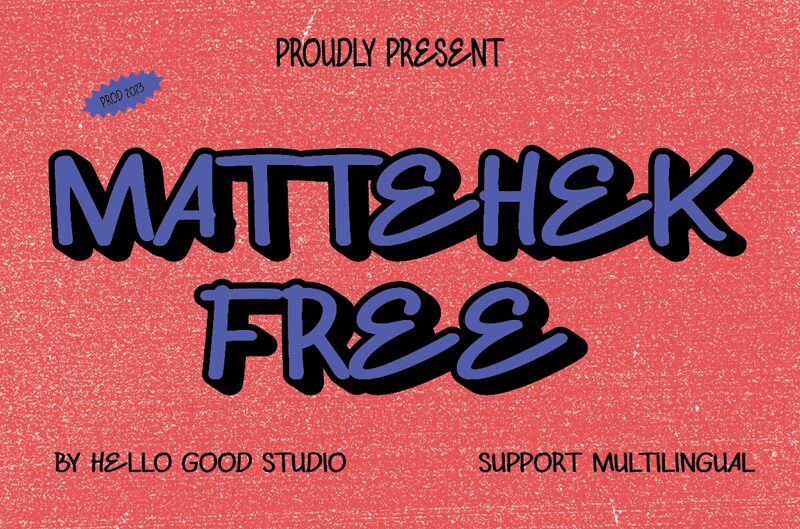
MATTEHEK FREE
Mattehek font is a handwriting-style free font with a light and friendly personality designed by Studio Hello Good. Mattehek brings stylish letters, cleanliness, and some expressive elements to your projects thanks to its unique natural handwriting style. It features condensed letters that are quite elegant and clear.
Suitable uses include branding & advertising, apparel design, product design labeling, personal diaries & journals, short quotes for social media design, calligraphy artworks (by hand tracing) book covers (novels in particular), product packaging & labeling designs of all sorts among others.